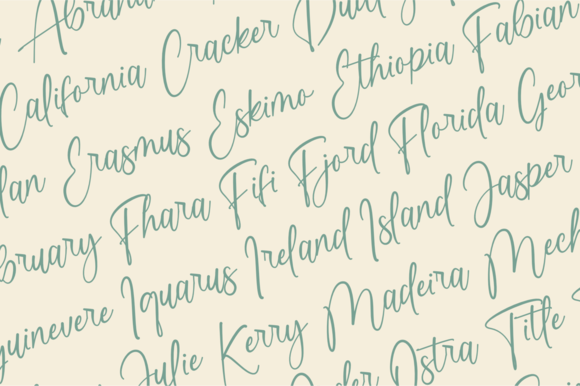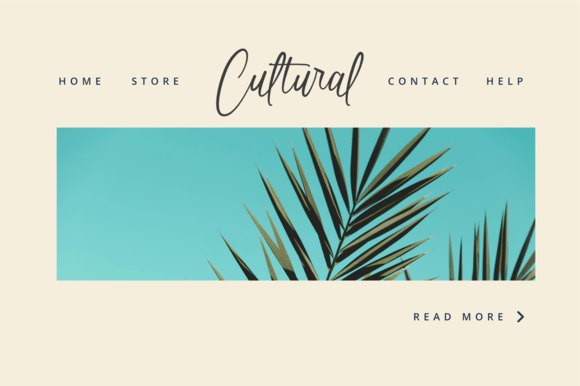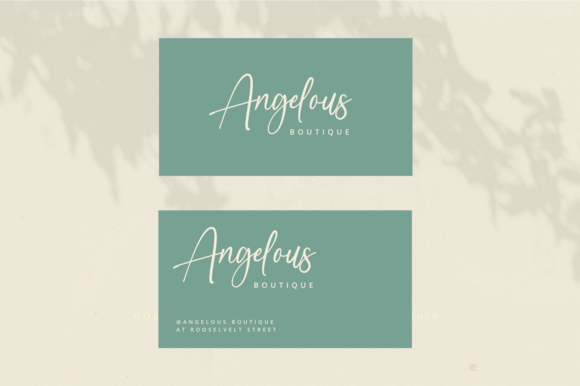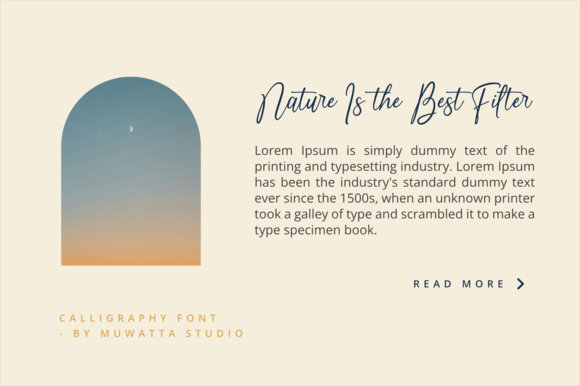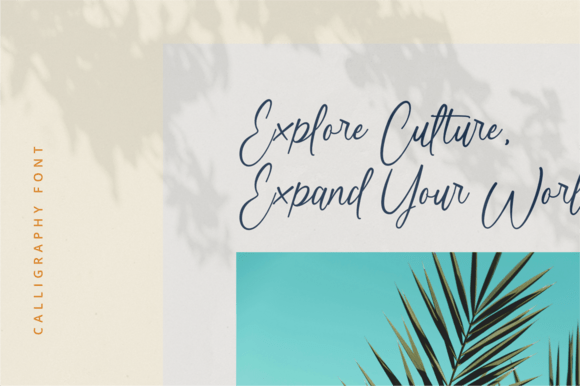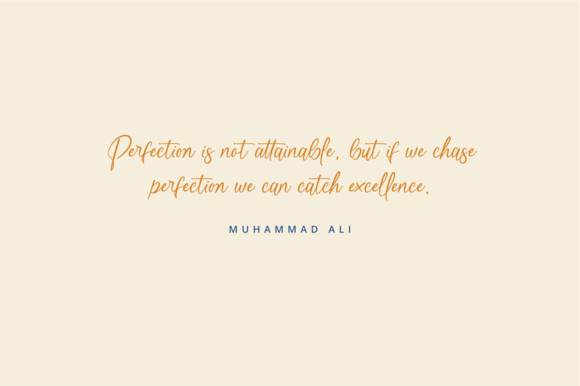
Cultural Font: Elevate Your Designs with Traditional Calligraphy and Cultural Nuance
In the world of typography, fonts play a crucial role in conveying the tone and personality of a design. For creative projects that emphasize cultural identity, a font that embodies tradition and heritage is essential. Introducing Cultural Font, an artistic font designed with a distinctive touch of traditional calligraphy and a strong cultural nuance. With its smooth curves and expressive strokes, Cultural Font is perfect for designers and crafters looking to add a touch of authenticity to their work.
The Inspiration Behind Cultural Font
Cultural Font is inspired by the rich history of traditional calligraphy, where every letter and stroke carries a story and a meaning. The font’s creator aimed to capture the essence of cultural heritage and translate it into a modern, yet timeless design. The result is a font that not only looks beautiful but also resonates with the cultural values and traditions that it represents.
Key Features of Cultural Font
- Smooth Curves: Cultural Font features smooth, flowing curves that give it a distinctive and elegant look. The curves add a touch of sophistication and refinement to any design.
- Expressive Strokes: Each letter in Cultural Font is designed with expressive strokes that convey a sense of warmth and depth. The strokes are carefully crafted to create a sense of movement and fluidity.
- Cultural Nuance: Cultural Font is infused with a strong cultural nuance that sets it apart from other fonts. The font’s design elements are inspired by traditional calligraphy and cultural symbols, making it perfect for projects that require a touch of cultural authenticity.
Cultural Font is ideal for a wide range of creative projects, including:
- Logo Designs: Use Cultural Font to create a logo that reflects your brand’s cultural heritage and values.
- Traditional Event Invitations: Add a touch of elegance and sophistication to your event invitations with Cultural Font.
- Craft Product Packaging: Use Cultural Font to create packaging that stands out and reflects the cultural inspiration behind your craft products.
Why Choose Cultural Font?
With so many fonts available, why choose Cultural Font? Here are just a few reasons:
- Unique Design: Cultural Font has a unique design that sets it apart from other fonts. Its blend of traditional calligraphy and modern elements makes it a standout choice.
- Cultural Significance: Cultural Font is designed to convey cultural values and traditions, making it perfect for projects that require a touch of authenticity.
- Versatility: Cultural Font is versatile and can be used for a wide range of creative projects, from logo designs to packaging.
Tips for Using Cultural Font
Here are a few tips for using Cultural Font effectively:
- Use it sparingly: Cultural Font is a statement font, so use it sparingly to make a maximum impact.
- Pair it with other fonts: Cultural Font pairs well with other fonts, so experiment with different combinations to find the perfect look.
- Experiment with colors: Cultural Font looks great in a variety of colors, so don’t be afraid to experiment and find the perfect hue.
Cultural Font is a unique and artistic font that is perfect for designers and crafters looking to add a touch of cultural authenticity to their work. With its smooth curves, expressive strokes, and strong cultural nuance, Cultural Font is ideal for creative projects that emphasize cultural identity. Whether you’re designing a logo, creating traditional event invitations, or packaging craft products, Cultural Font is the perfect choice.